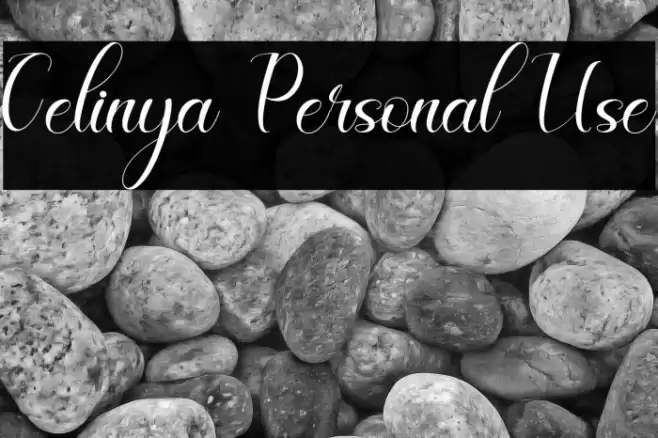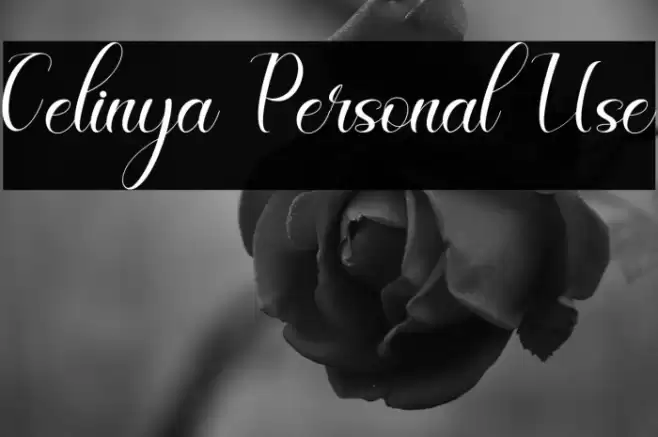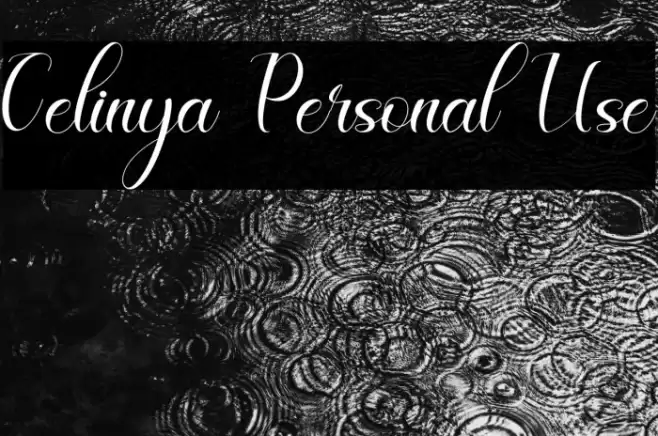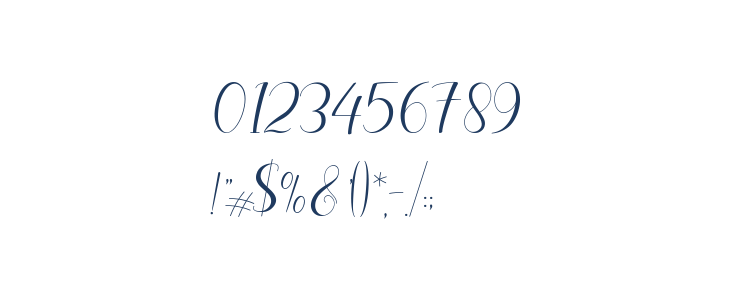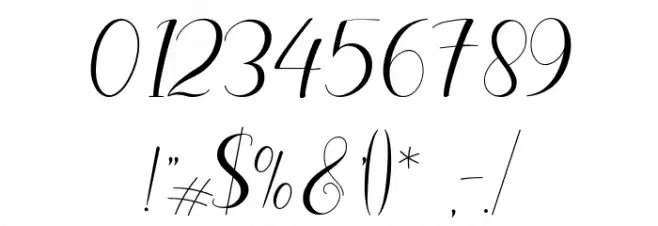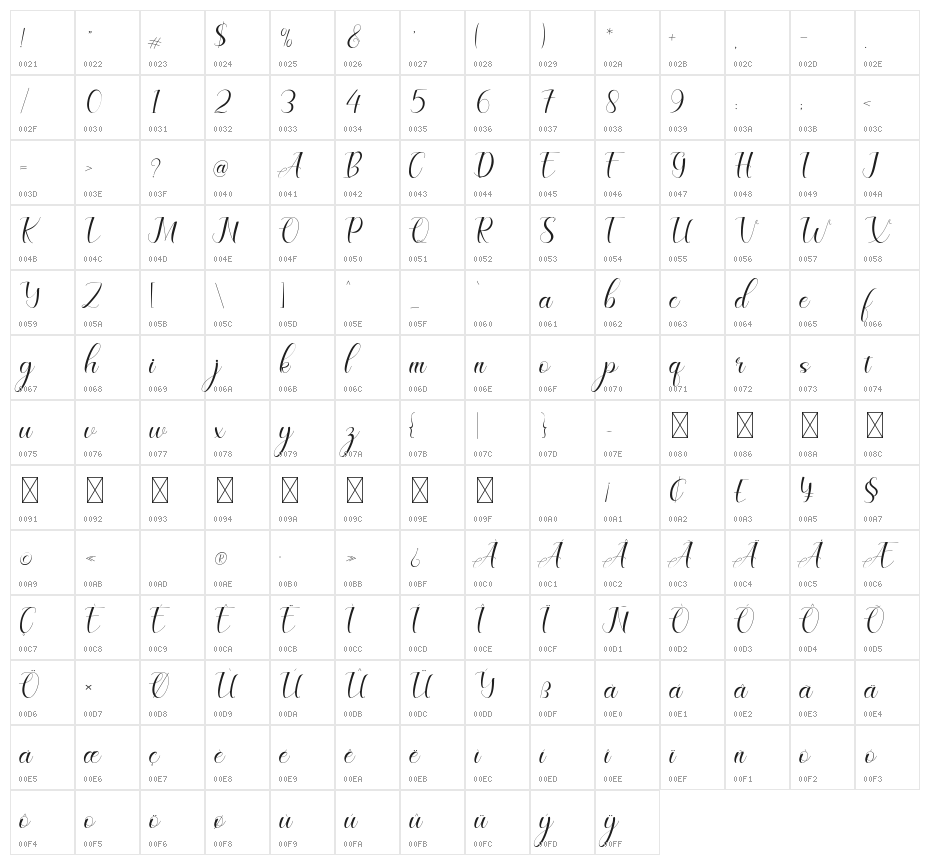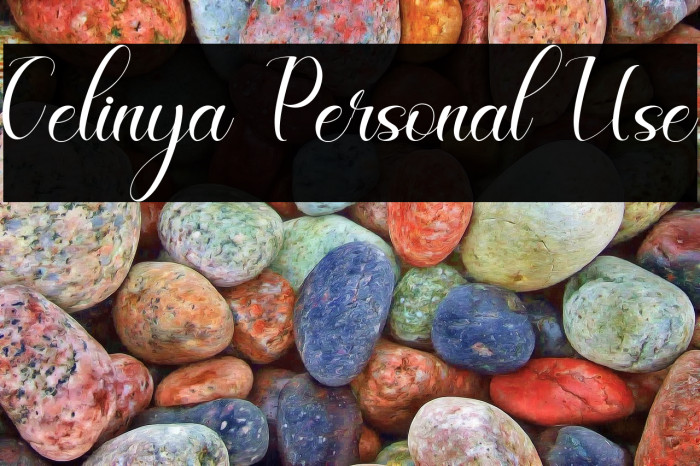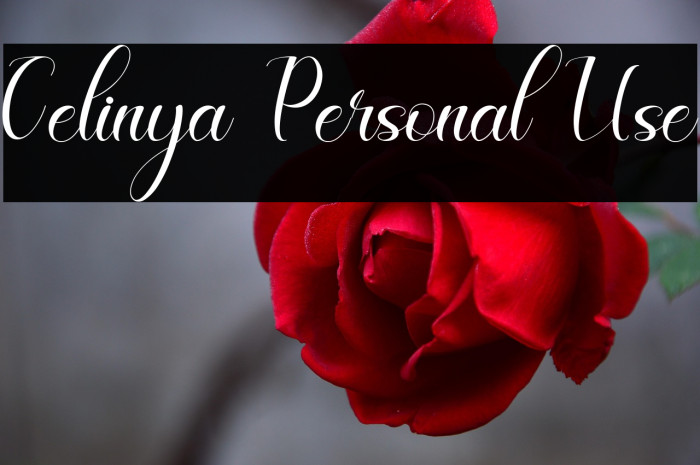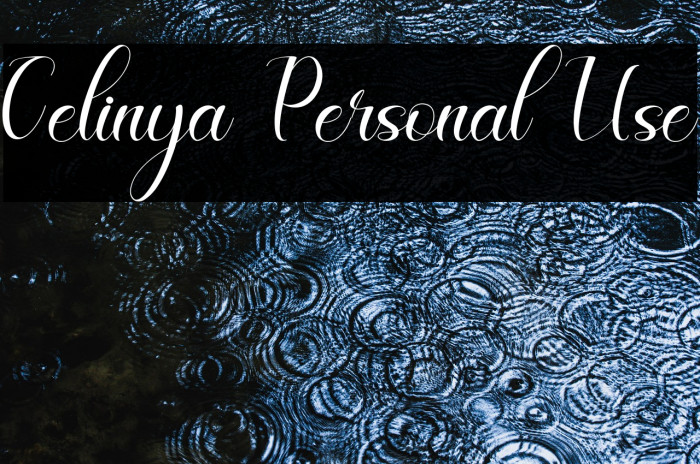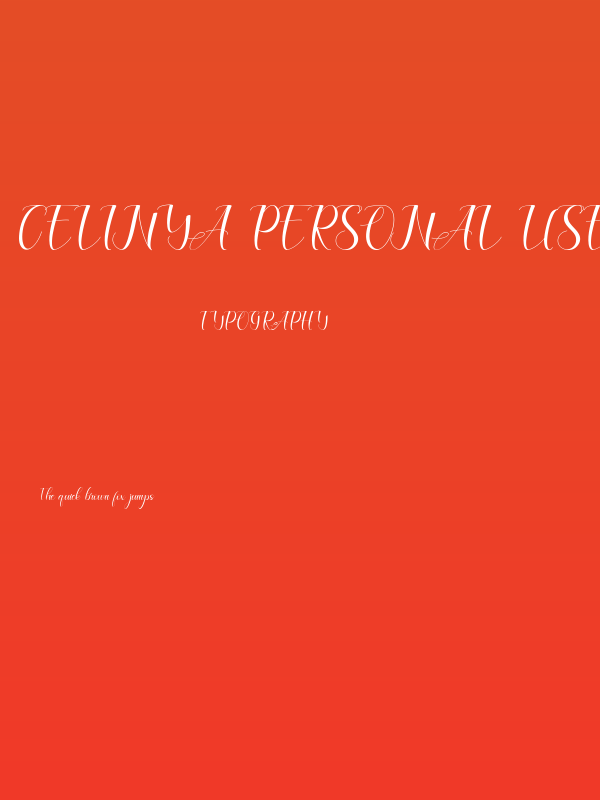
Celinya Personal Use Font
Celinya Personal Use Description
This elegant script font features a flowing, cursive style with delicate, sweeping strokes. The uppercase letters are characterized by their tall, graceful forms and intricate loops, while the lowercase letters maintain a consistent fluidity and charm. The numerals are stylish and maintain the same elegant curves as the letters. Special characters are designed with the same attention to detail, making them seamlessly integrate with the overall aesthetic. This font exudes sophistication and is perfect for projects that require a touch of class and elegance.
An elegant script font with flowing, cursive strokes and intricate loops from Regular fonts.
- Proposed Projects: Ideal for wedding invitations, elegant branding, luxury product packaging, and sophisticated event posters.
- Overall Style: Elegant
- Use Case: Logos, Invitations, Branding